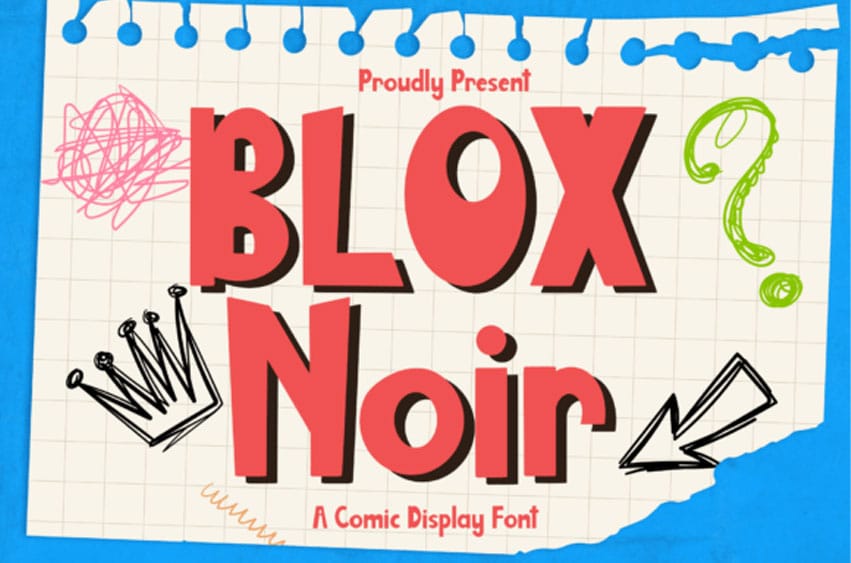
Blox Noir Font is a bold and playful comic display typeface crafted to spark imagination and instantly grab attention. Bursting with hand-drawn personality, its chunky proportions and exaggerated forms channel the spirit of classic cartoon lettering, making it perfect for any design that needs a fun, expressive twist. The subtle shadowing adds depth and a lively, three-dimensional feel, enhancing its impact across mediums.
Whether you’re designing for children’s books, branding, packaging, or editorial layouts, Blox Noir brings energy and clarity in both uppercase and lowercase forms. Purpose-built for display settings, it excels in headlines, logos, and poster designs, where its dynamic curves and comic charm can truly shine. With multilingual support and an extended character set, it’s ready to play on a global stage.